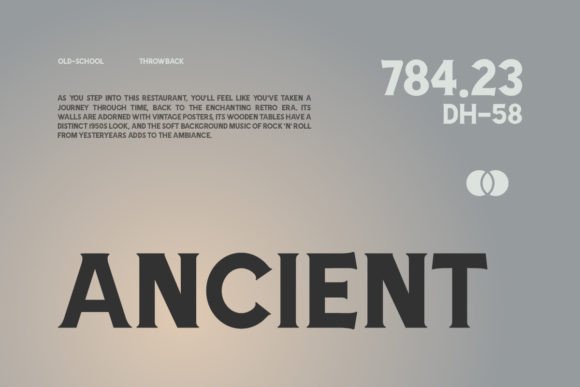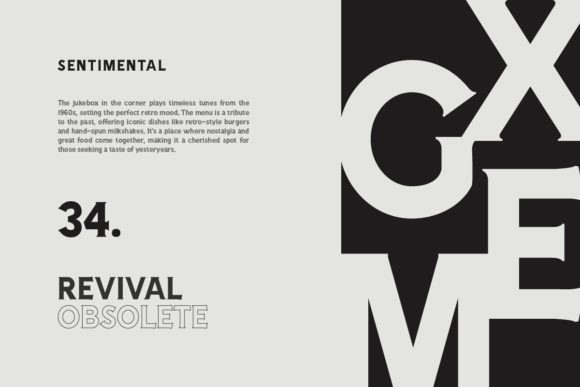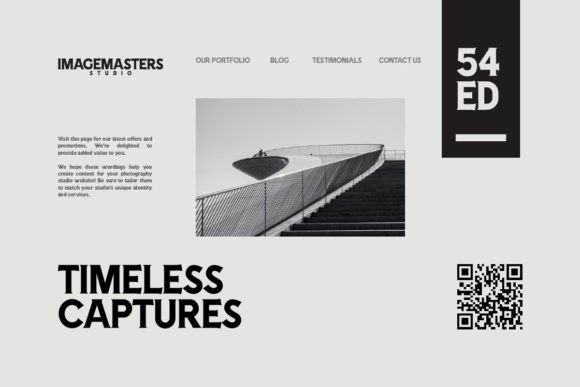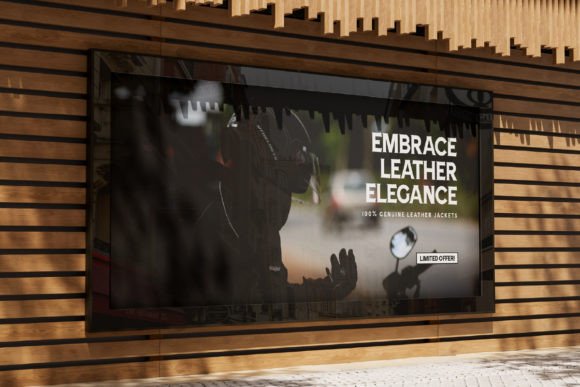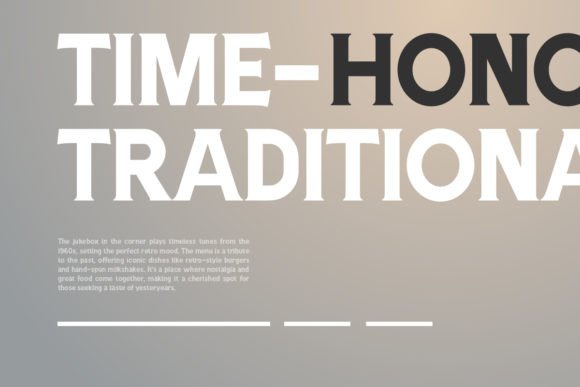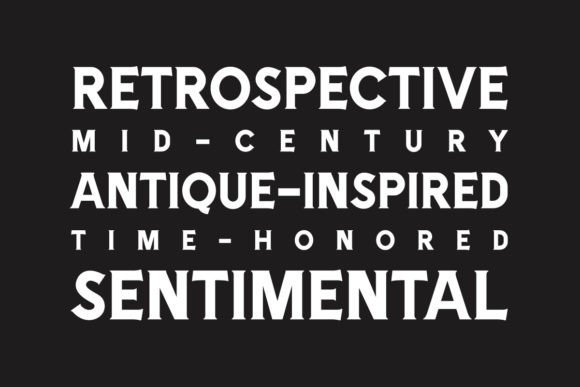
Chelsey Font: Elevate Your Designs with a Fresh and Neat Display Font
In the world of design, fonts play a crucial role in conveying messages, expressing emotions, and creating visual identities. For designers and crafters looking for a font that can add a touch of elegance and sophistication to their work, Chelsey Font is an excellent choice. This fresh and neat display font is perfect for creating eye-catching logos, branding, and quotes that will leave a lasting impression.
What Makes Chelsey Font Stand Out?
Chelsey Font boasts a unique and beautiful touch that sets it apart from other fonts. Every letter is carefully crafted to bring a sense of freshness and neatness to your designs. The font’s clean lines, subtle curves, and balanced proportions make it an ideal choice for a wide range of design applications, from logos and branding to quotes and social media graphics.
Key Features of Chelsey Font
- Unique and Beautiful Touch: Each letter in Chelsey Font has a distinctive character that adds a touch of personality to your designs.
- Fresh and Neat Design: The font’s clean and modern design makes it perfect for creating visually appealing graphics.
- Elegant and Sophisticated: Chelsey Font’s elegant lines and curves bring a sense of sophistication to your designs.
- Versatile: The font is suitable for a wide range of design applications, including logos, branding, quotes, and more.
Why Choose Chelsey Font for Your Designs?
There are many reasons why Chelsey Font is an excellent choice for designers and crafters. Here are a few:
- Easy to Read: The font’s clean design and clear lines make it easy to read, even at small sizes.
- Highly Versatile: Chelsey Font can be used for a wide range of design applications, from digital graphics to print materials.
- Time-Saving: With Chelsey Font, you can create professional-looking designs quickly and easily.
- Unique Designs: The font’s unique and beautiful touch will help your designs stand out from the crowd.
How to Use Chelsey Font in Your Designs
- Pair it with Other Fonts: Chelsey Font pairs well with other fonts, so feel free to experiment with different combinations.
- Use it for Headlines: The font’s bold and elegant design makes it perfect for headlines and titles.
- Add a Pop of Color: Chelsey Font looks great in a variety of colors, so don’t be afraid to add a pop of color to your designs.
In conclusion, Chelsey Font is a fresh and neat display font that is perfect for designers and crafters looking to elevate their designs. With its unique and beautiful touch, elegant lines, and versatile design, Chelsey Font is an excellent choice for creating eye-catching logos, branding, and quotes. Whether you’re a professional designer or a crafty DIY enthusiast, Chelsey Font is sure to become a favorite in your design arsenal.